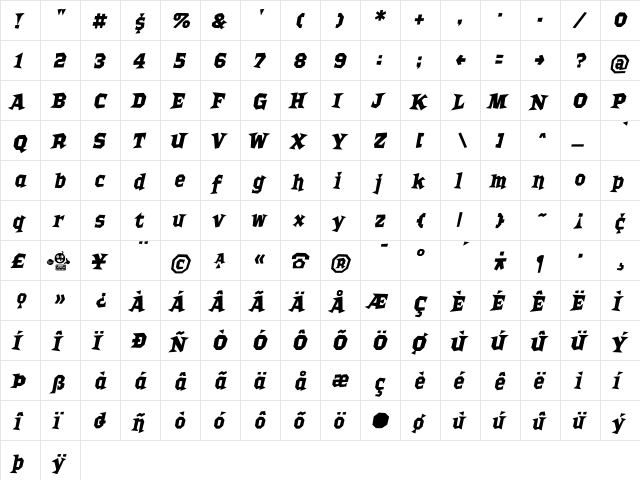
Bordello BoldItalic
Design Context for Bordello Typeface
Bordello is a composed and adaptable typeface that performs quietly and consistently across a wide range of design contexts. The dynamic lean of this cut emphasises speed and emphasis in any layout. The heavy weight commands attention and anchors typographic hierarchies.
Pro Tip: Use Bordello for emphasis, pull quotes, and subheadings where its slanted energy can add rhythm to the layout.